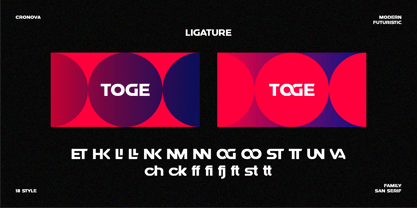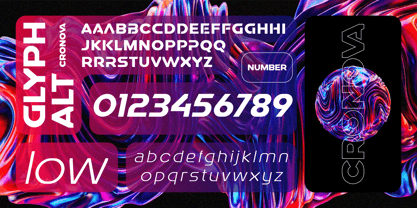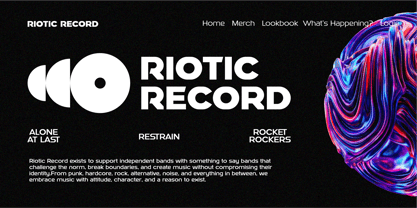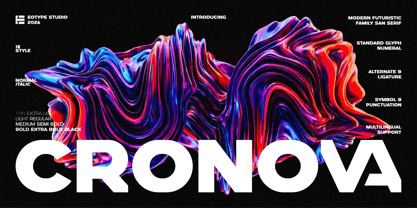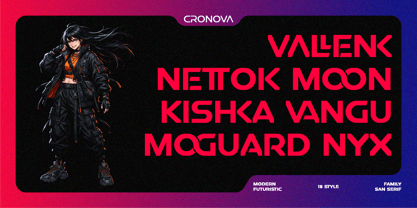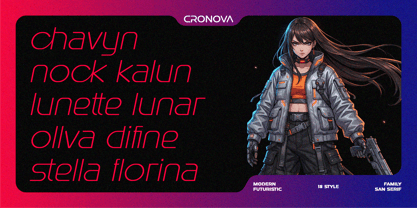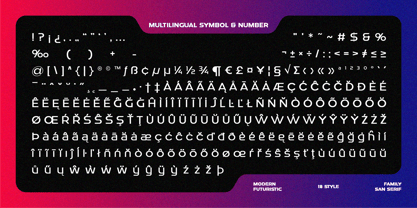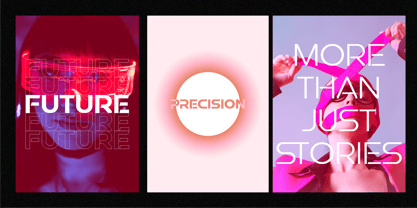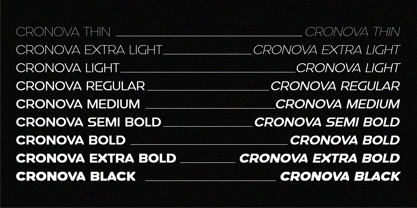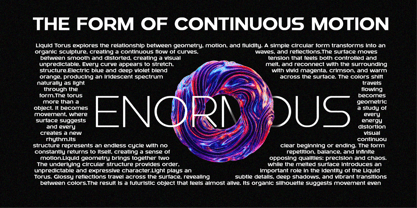
Cronova
by Eotype
CRONOVA — A Futuristic Typeface for the Next Visual Era
CRONOVA is a sophisticated futuristic typeface designed for creators who want to build bold, distinctive, and forward-thinking visual identities.
Defined by its refined geometric construction, sleek proportions, and experimental details, CRONOVA explores the intersection between technology, motion, architecture, and contemporary design. Every character is carefully crafted to create a strong visual rhythm—balancing precision with personality and minimalism with expressive futuristic character.
With a complete family of 18 styles, ranging from Thin to Black, CRONOVA offers exceptional flexibility across different creative directions. From elegant, lightweight compositions to powerful and commanding headlines, each weight maintains a cohesive and recognizable visual language.
Beyond its extensive weight range, CRONOVA includes Ligatures and Alternate Characters, giving designers additional creative freedom to build more distinctive typographic compositions and unique visual identities. The family also features multilingual support, numerals, punctuation, and symbols, making it a versatile tool for a broad range of international design projects.
CRONOVA was created for the future but designed to make an impact today.
Whether used for a cutting-edge brand identity, a fashion campaign, a futuristic interface, an experimental editorial layout, or a high-impact poster, CRONOVA brings a confident and unmistakable presence to every composition.
Typeface Features :
• 18 Styles — Thin to Black
• Futuristic & Contemporary Character
• Refined Geometric Construction
• Ligatures
• Alternate Characters
• Multilingual Support
• Numerals & Punctuation
• Symbols
• Strong Display Presence
• Suitable for Digital & Print Applications
Perfect For :
Brand Identity • Logotypes • Technology • Fashion • Sports • Gaming • Music • Editorial • Posters • Packaging • Digital Experiences • UI Concepts • Motion Graphics • Social Media • Advertising
Designers: Fajar Ramadan
Foundry: Eotype